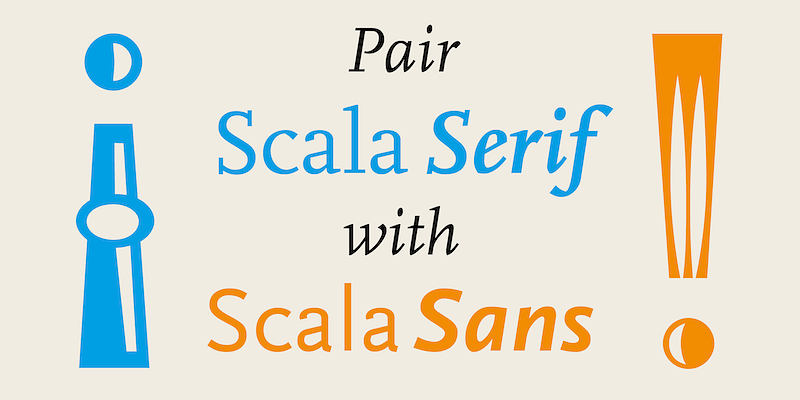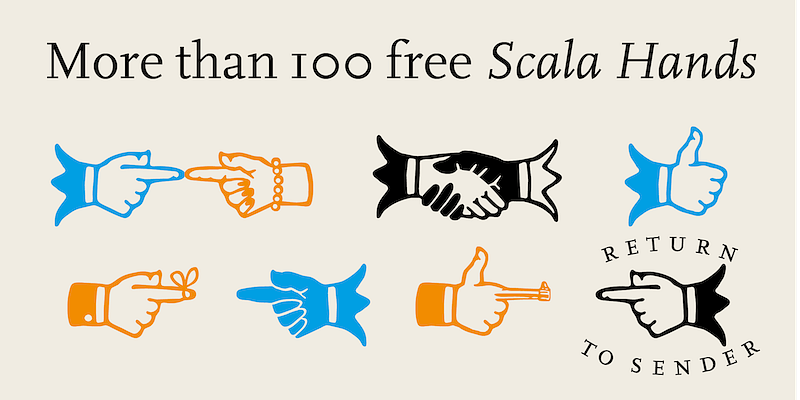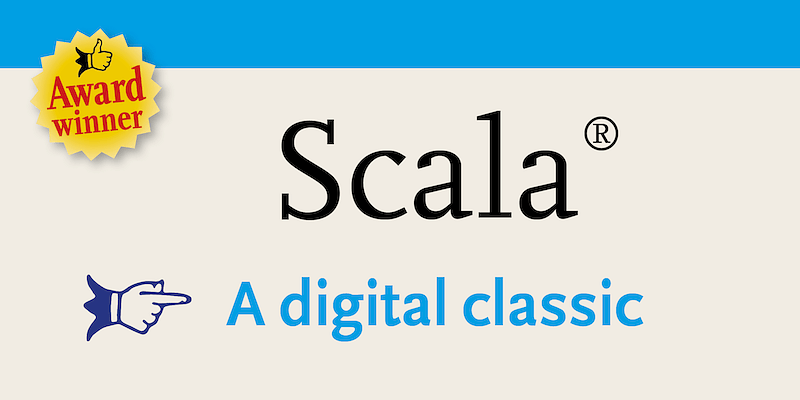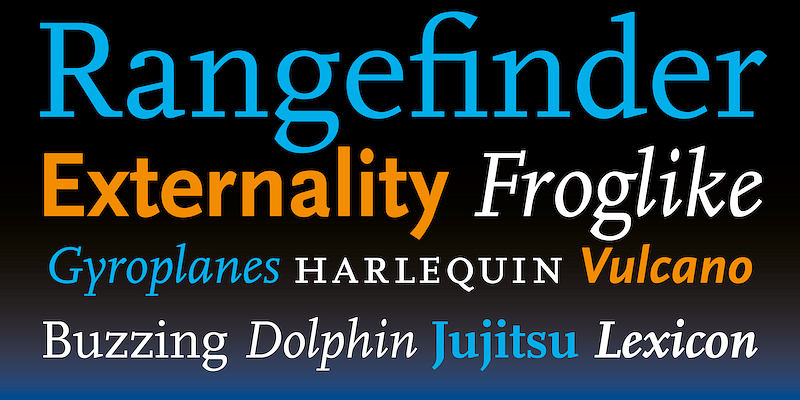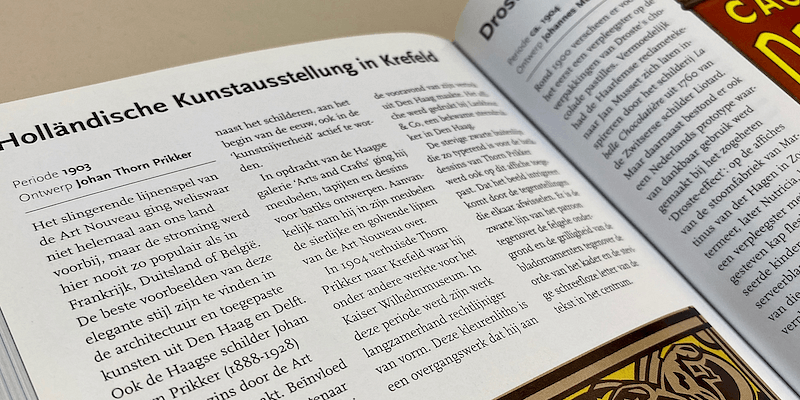
Scala: a typefaces that changed the world
Scala® was launched in November 1989, designed exclusively for Music Centre Vredenburg in Utrecht. A year later, it was released by FontShop International in Berlin, becoming the first serious text typeface on the FontFont label. The award-winning Scala has since become a worldwide bestseller and is regarded as a ‘digital classic’. In 2013, London’s Design Museum selected Scala as one of the ‘Fifty Typefaces that Changed the World’.
Scala’s already huge success was bolstered by the arrival of Scala Sans in 1993. The sans was based primarily on Scala, making it a humanist sans, complete with a real italic, rather than a merely slanted roman.
Scala Hands is a free, highly popular collection of manicules and pointers: serif and sans serif, left- and right-pointing, solid and outline, male and female, thumbs up and thumbs down, and many more.
Scala Jewels is a set of four highly decorative typefaces based on the bold capitals of Scala. While Crystal and Pearl are modelled on classic examples, Diamond and Saphyr are original designs.
In 2021 Martin Majoor launched an independent type foundry under his own name. Majoor is known for his award-winning typefaces (Scala, Seria, Nexus) that were originally published by Fontshop. His Scala and Scala Sans are considered ‘classics’ and are among the first digital typefaces. In collaboration with Jos Buivenga he designed the large and successful Questa family. In his latest typeface ‘Comma Base’, he explores the basic shapes of a typeface, with both typical sans features and at the same time serif elements. It can be seen as a typeface featuring the best of both worlds. Comma Base is the first typeface to be released by his own foundry.